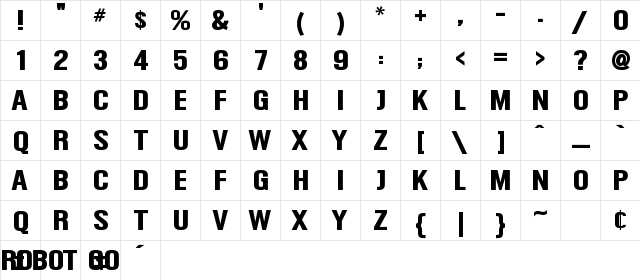
Robot Go Regular
| Designer | Joseph Dawson |
Design Context for Robot Go Typeface
Robot Go takes a measured approach to typography — its balanced proportions and neutral character make it a reliable workhorse for both digital and print work.